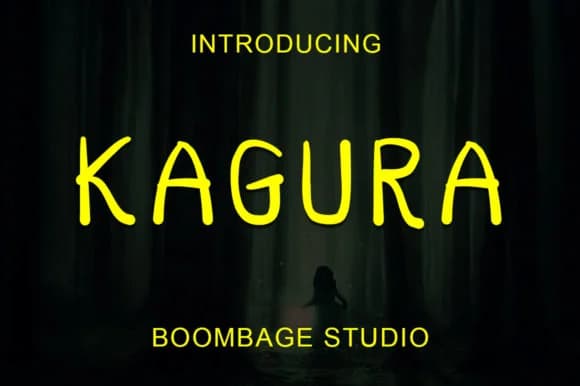
Kagura Font by KomsaynCreative is a flowing script typeface with gentle, organic letterforms that maintain excellent legibility across various applications. The font's handwritten aesthetic brings warmth and personality to any project without sacrificing clarity, a balance that makes it particularly valuable for designers seeking approachable yet polished solutions. This smooth, connected script captures the essence of natural penmanship while remaining perfectly readable in both headline and body contexts. This versatile script shines in wedding invitation suites where its graceful curves set an elegant tone, as well as personalized stationery and greeting card designs that call for a human touch. Beyond personal occasions, Kagura works beautifully for brand letterhead, boutique product labels, and social media graphics where a soft, friendly voice matters. The font's thoughtful construction ensures consistent legibility whether you're spacing out a single letter or laying out a full paragraph. Whether you're creating handmade cosmetics packaging, designing DIY craft templates, or developing comprehensive brand identity systems, Kagura delivers the refined handwritten quality that contemporary design demands. Its versatility makes it equally at home on luxury packaging, personal blogs, and invitation designs that need to feel genuinely handwritten rather than digitally generic. Get Kagura Font on Creative Fabrica and add this elegant script to your design collection.
Kagura Font is a script font that shines as a display or heading face. Pair it with a clean sans-serif or serif font for body text β the contrast creates a clear hierarchy while the two styles stay balanced and easy to read.
Kagura Font